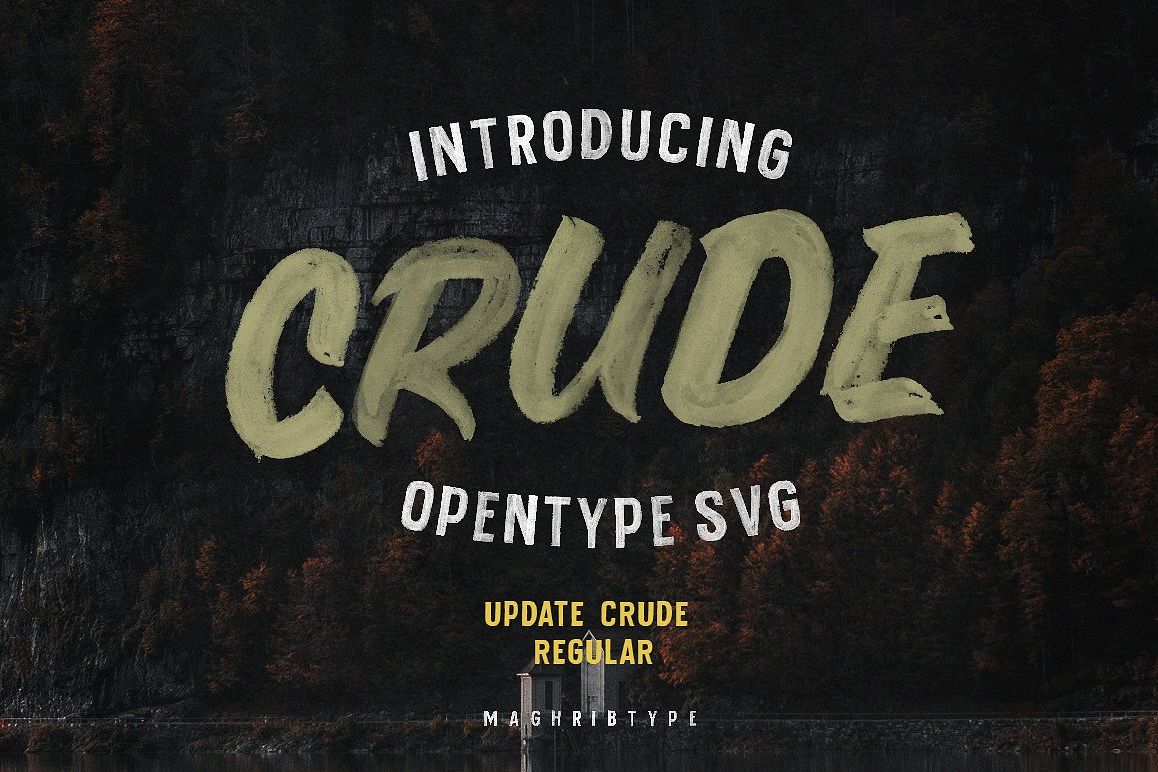
Crude OpenTypeSvg UPDATE
The OpenTypeSVG format requires Photoshop CC 2017 or newerCrude is my latest handpainted brush font, and my first which makes use of this new technology, by using high resolution brush stroke images with incredible definition, instead of the traditional vector format.font to the next level with a hyper realistic font that truly looks, crude typeface uses brand new technology that makes way for more authentic looking fonts and is sure to grab the attention of customers and designers a like.What’s included: